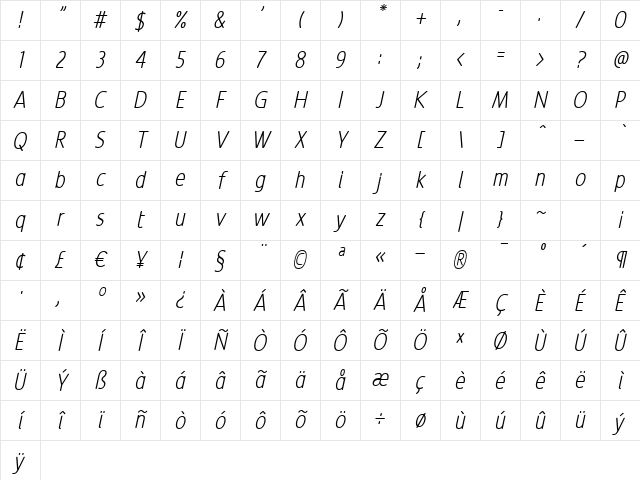
Revalo ModernLight Italic Regular
Design Context for Revalo ModernLight Italic
Revalo ModernLight Italic is a composed and adaptable typeface that performs quietly and consistently across a wide range of design contexts. The slanted form adds forward momentum and visual energy. Its slender proportions lend an understated elegance to any composition.